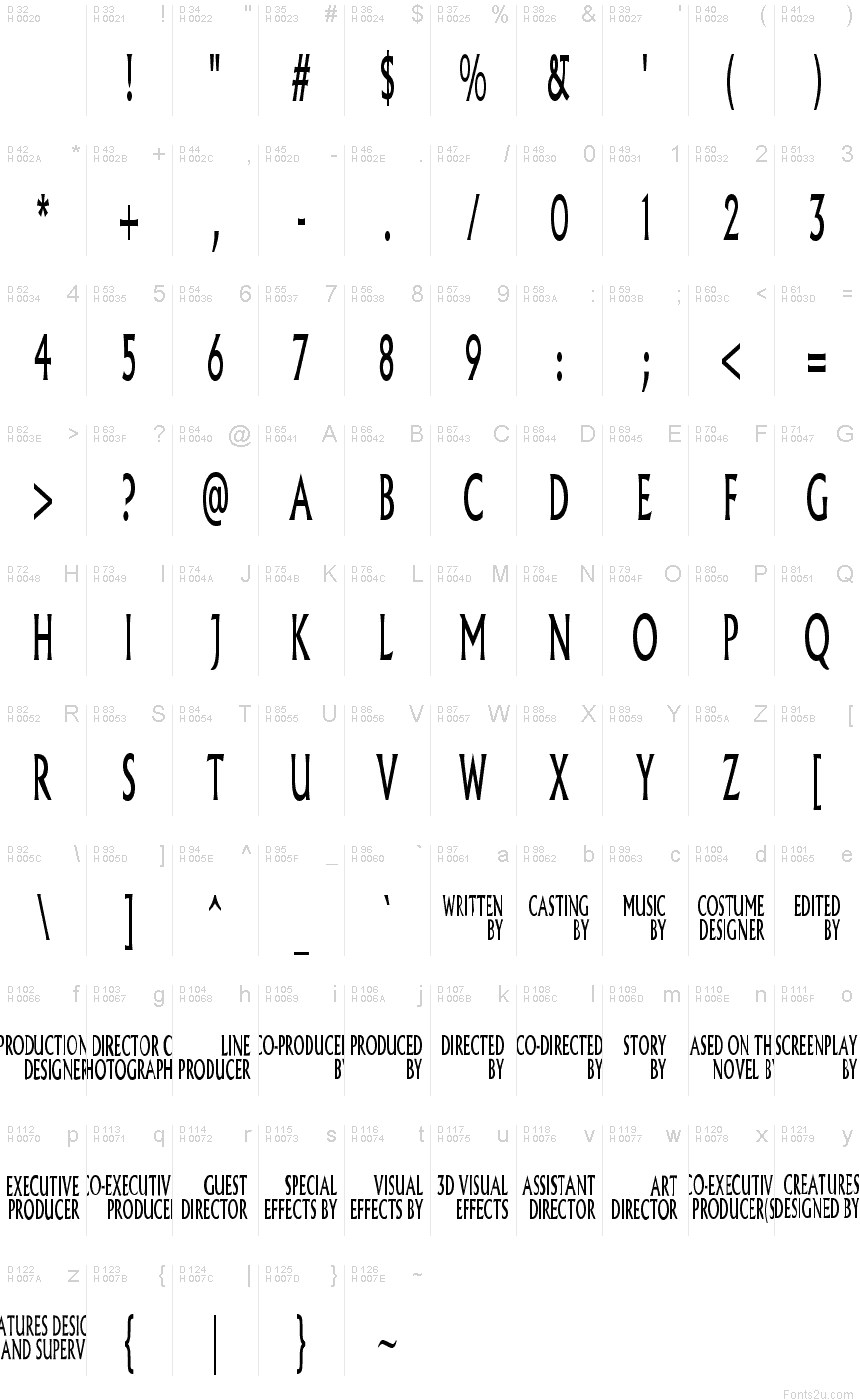
Pliskin Snake-Eyes by Tracer Tong is a free movie-inspired display font with extremely narrow, towering letters. Its uneven stroke widths and pinched curves recall the compressed typography of film credits. The sharp silhouettes keep the lettering tense and severe.
Thriller and action-film themes are its clearest territory, especially for posters and title cards. It also suits game graphics. The same cinematic narrowness can shape music merchandise and event branding with a gritty screen presence.
A modified Albertus Medium